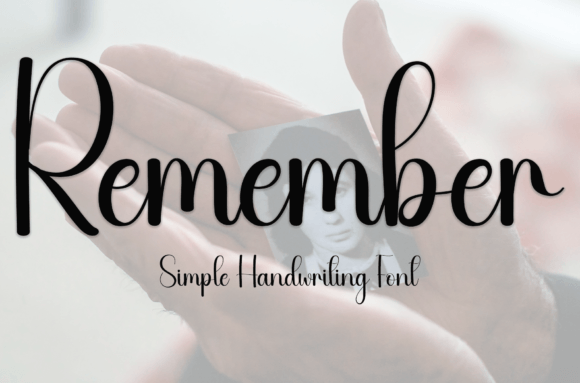
Introducing Remember, a beautiful and enchanting handwritten font that will bring your creative visions to life!
With its elegant, delicate strokes and smooth curves, the Remember font is the perfect choice for adding a touch of vintage charm to your designs. Whether you're creating wedding invitations, cards, logos, or any other design that calls for a charismatic and stylish flair, Remember will effortlessly elevate your work.
With Remember, you'll have the power to create designs that exude warmth and individuality. Its sweet and friendly nature makes it ideal for writing heartfelt messages, adding a personal touch to your projects. Its fresh, neat look makes it easy on the eyes, ensuring that your words are effortlessly readable and inviting.
Remember is not just another font; it's an artistic expression that adds a delightful touch to your designs. Its versatility makes it suitable for a wide range of creative endeavors. Unleash your imagination and let Remember guide you on a journey of unique and captivating designs.
So, embrace the charm and elegance of Remember and elevate your designs to new heights!